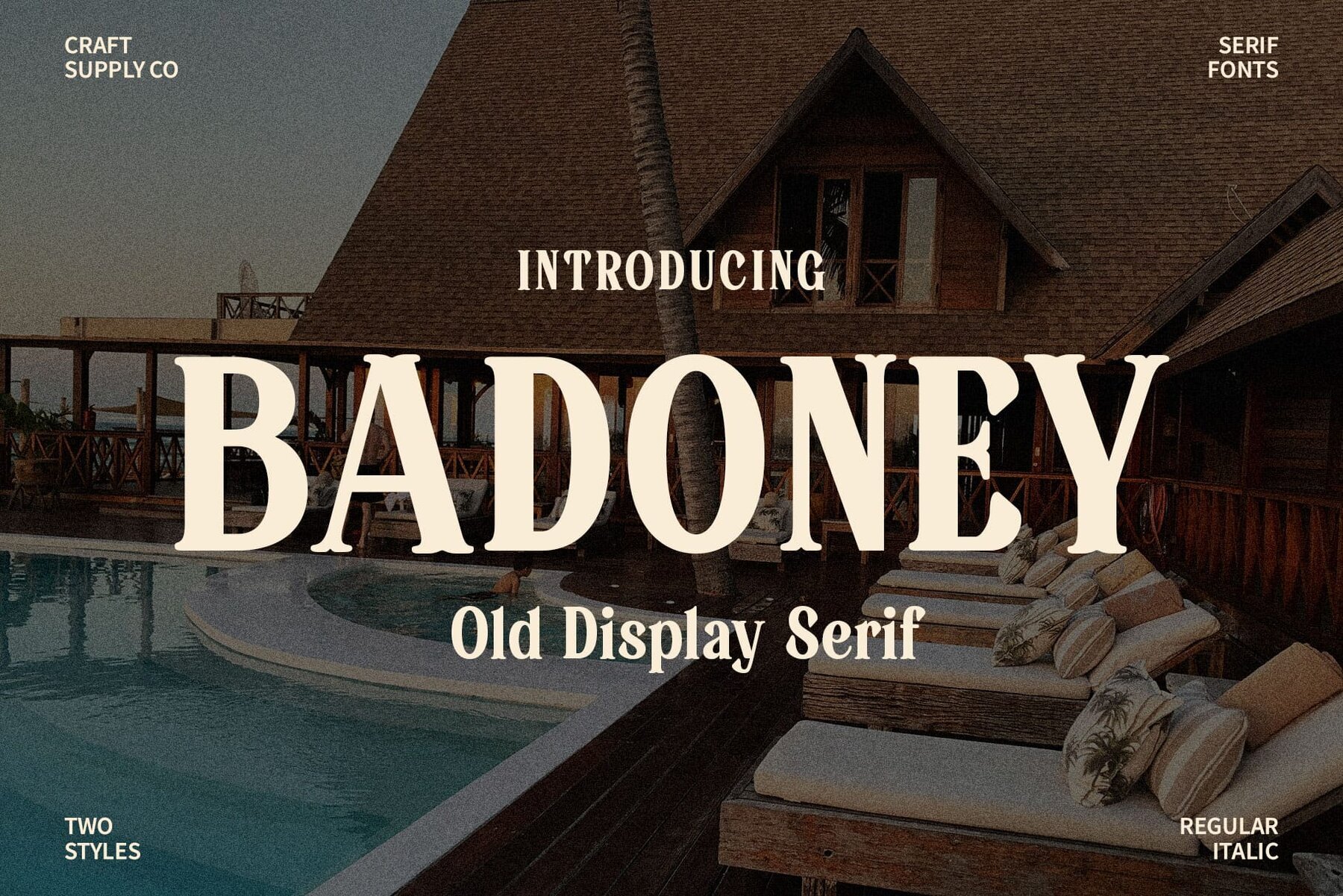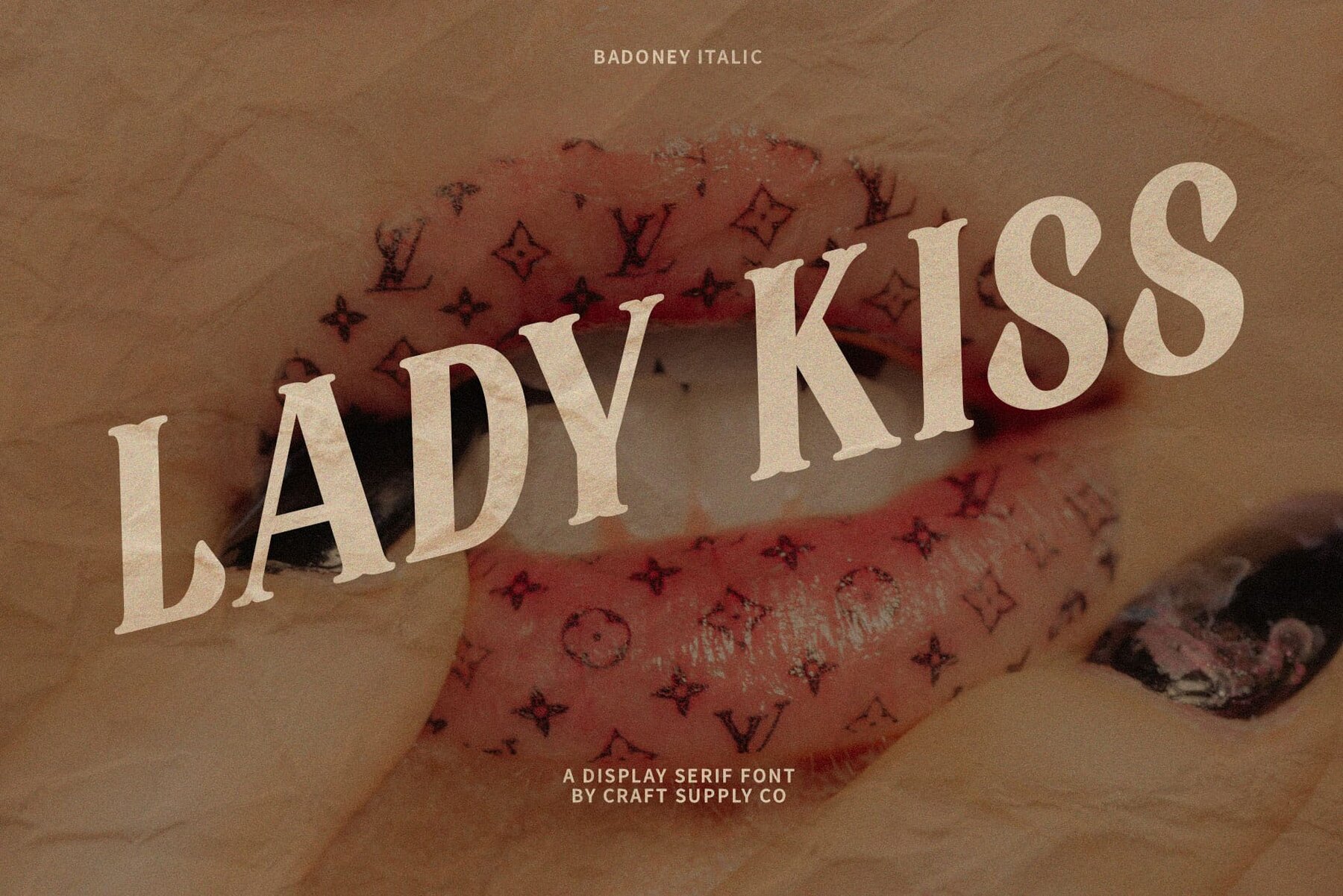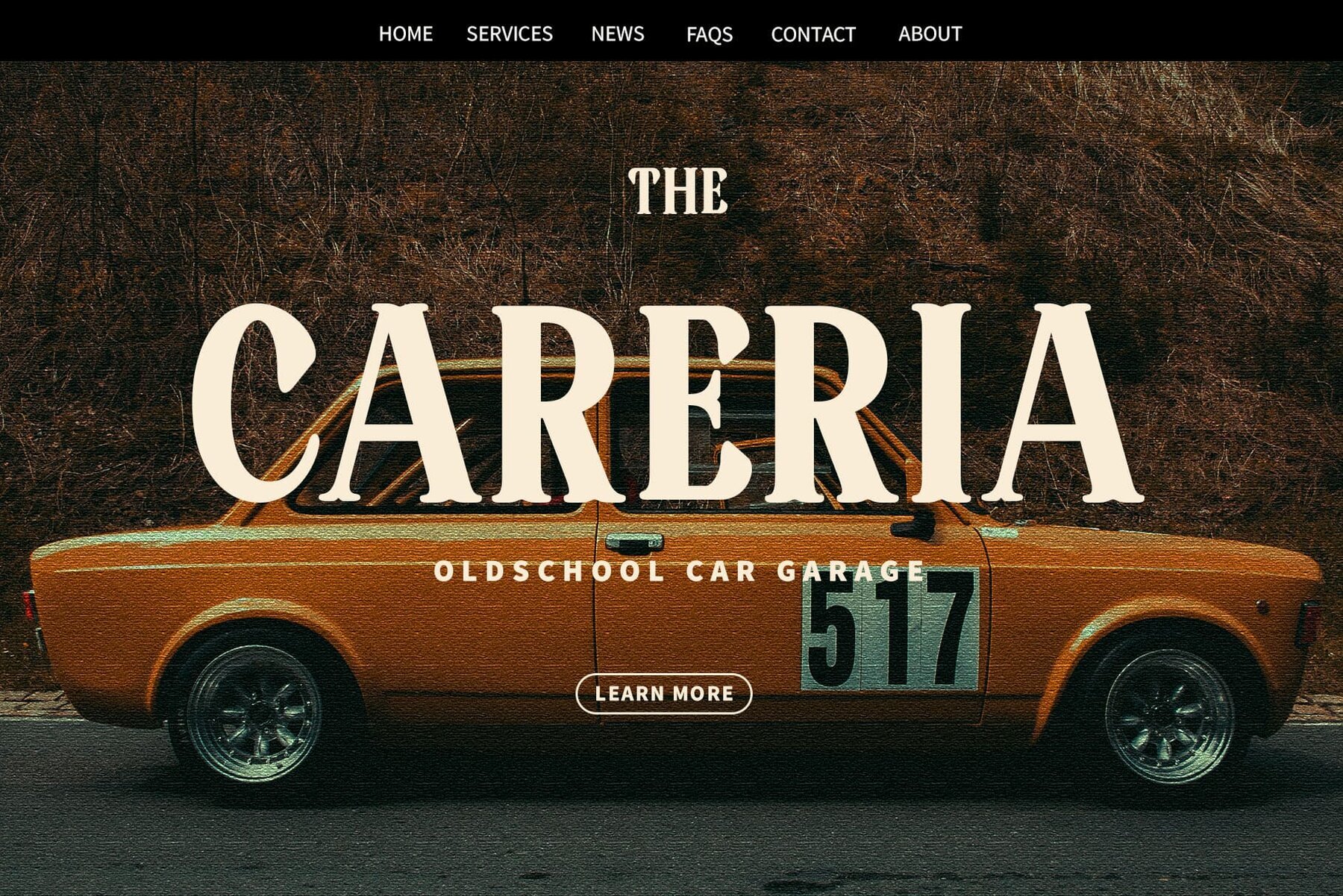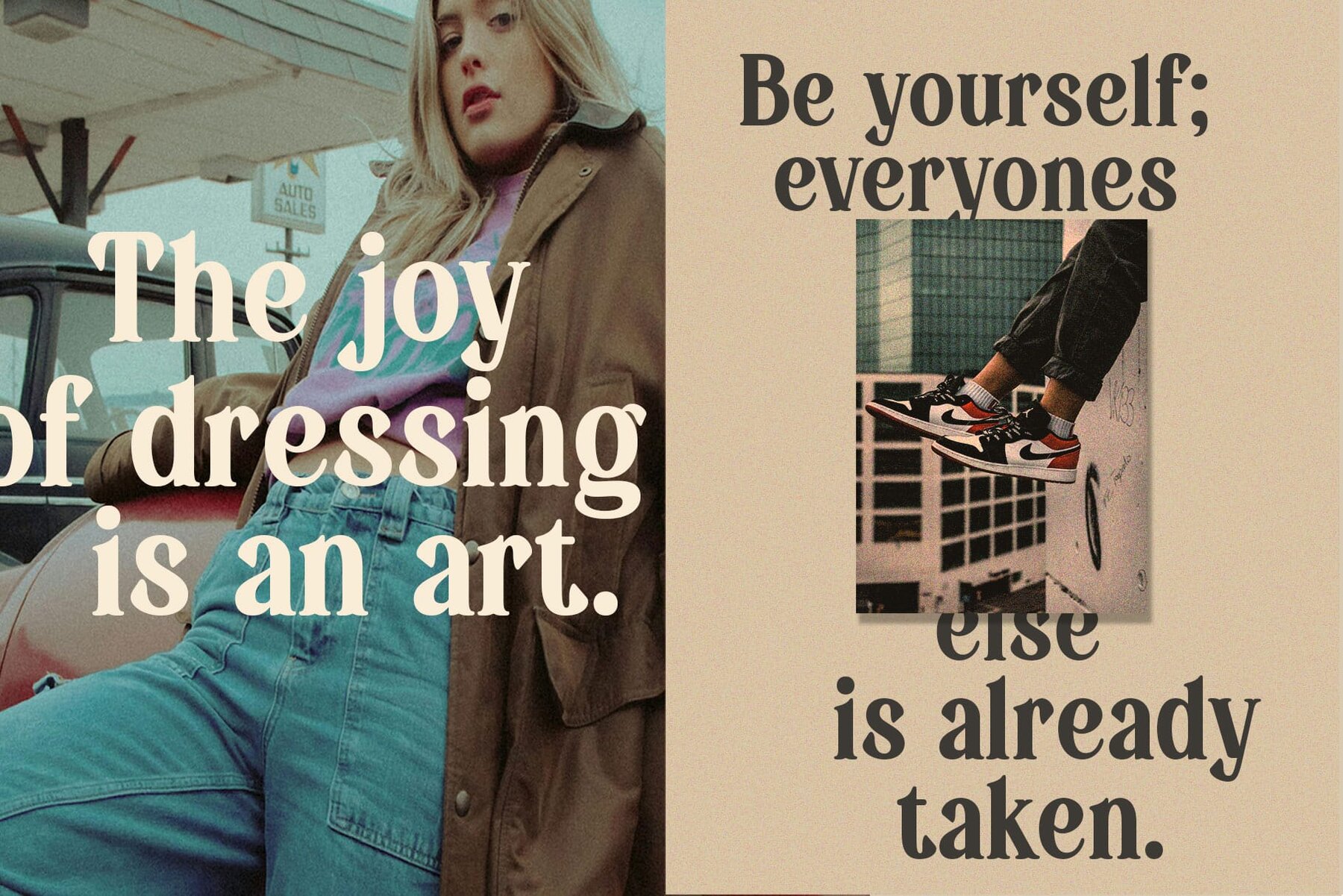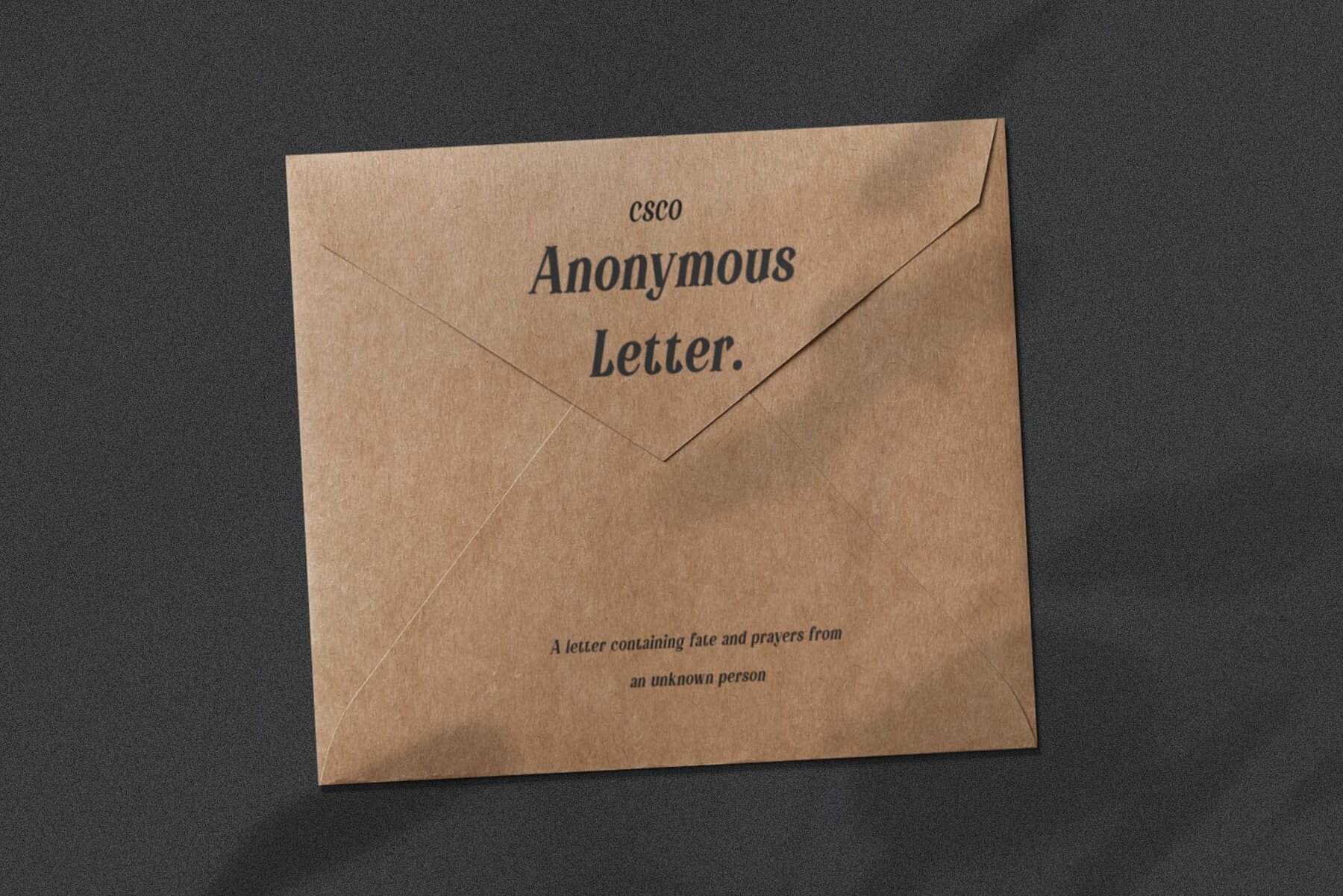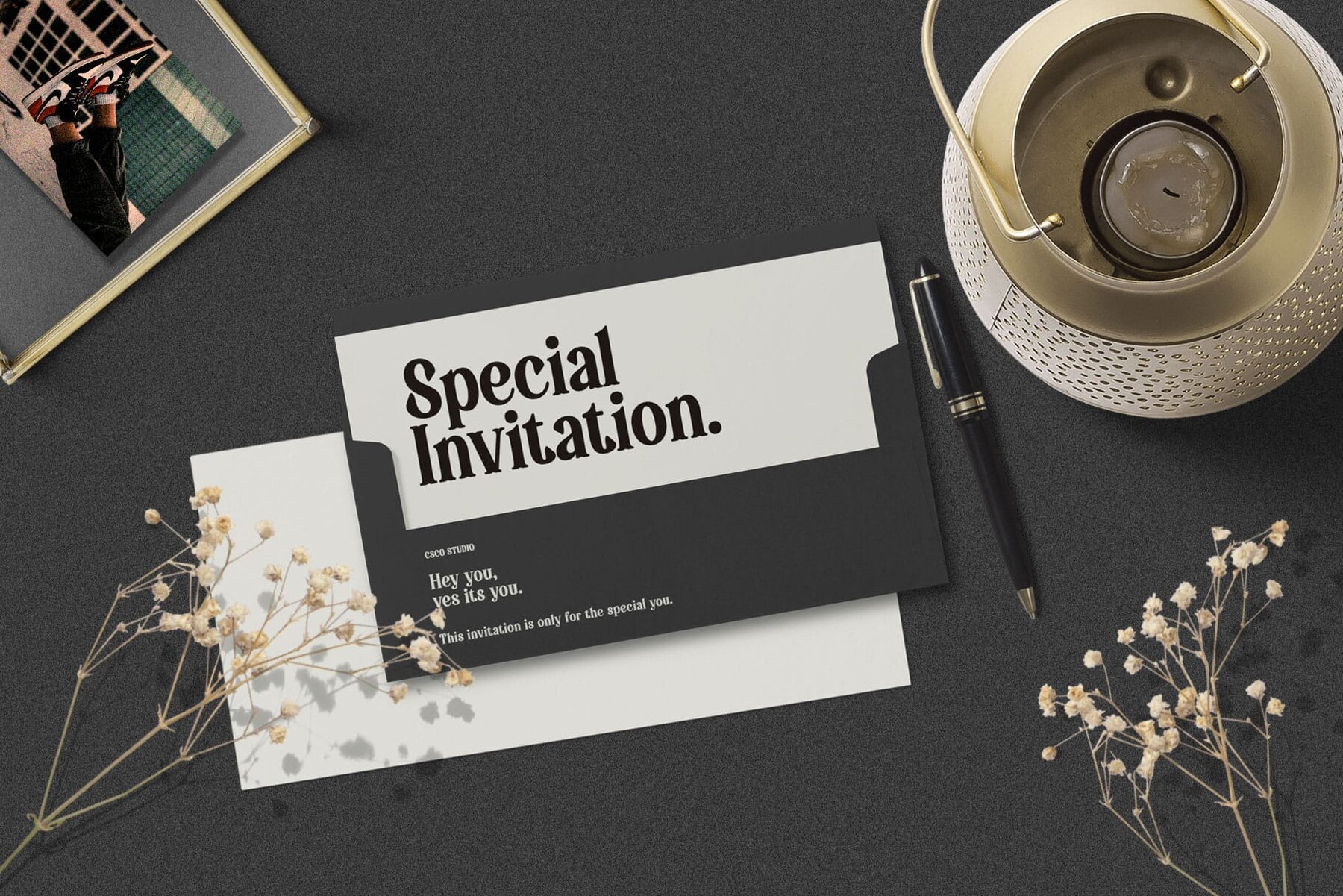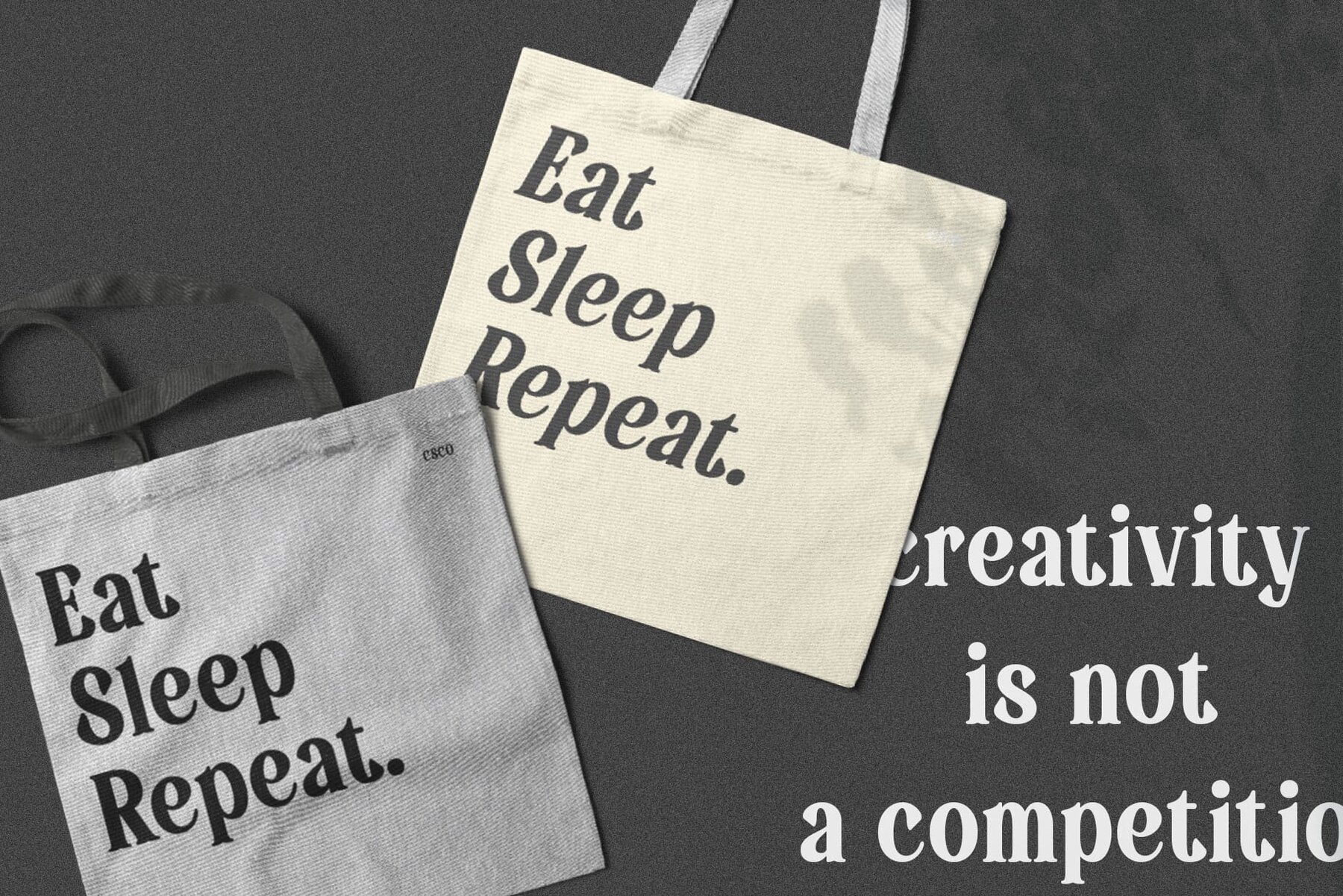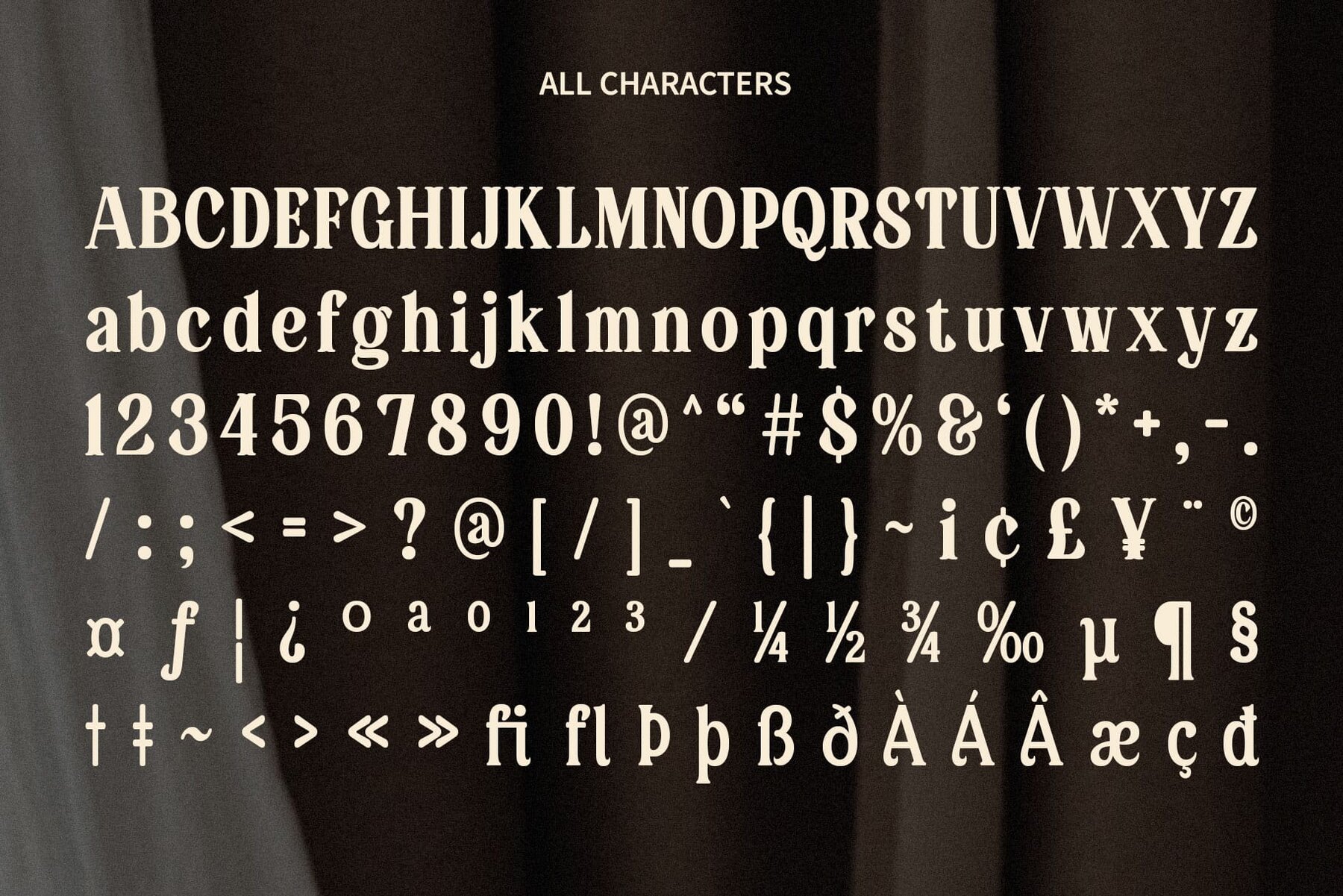
Badoney Font
Badoney is a serif font designed for those seeking a stylish and sophisticated typographic solution. It stands out as the perfect choice for creating impactful displays and captivating titles, setting a new benchmark in typography. Each character in Badoney is meticulously crafted, showcasing an exquisite balance of curves and lines. This attention to detail redefines elegance in serif fonts, offering a distinct visual appeal. From gracing magazine covers to enhancing website titles, Badoney's versatility ensures a stylish presence across various design platforms, making an indelible impression. Badoney doesn't just typify words; it creates lasting impressions. Its stylish serif design elevates your message, leaving a memorable mark on your audience. This typeface can be used without any specialized software. If you have any inquiries or need assistance, please feel free to contact us. Thank you for choosing Badoney to enhance your creative projects!Badoney: A Stylish Serif for Impactful Design
Elegance in Every Curve
Versatile Impact
Crafting Unforgettable Impressions